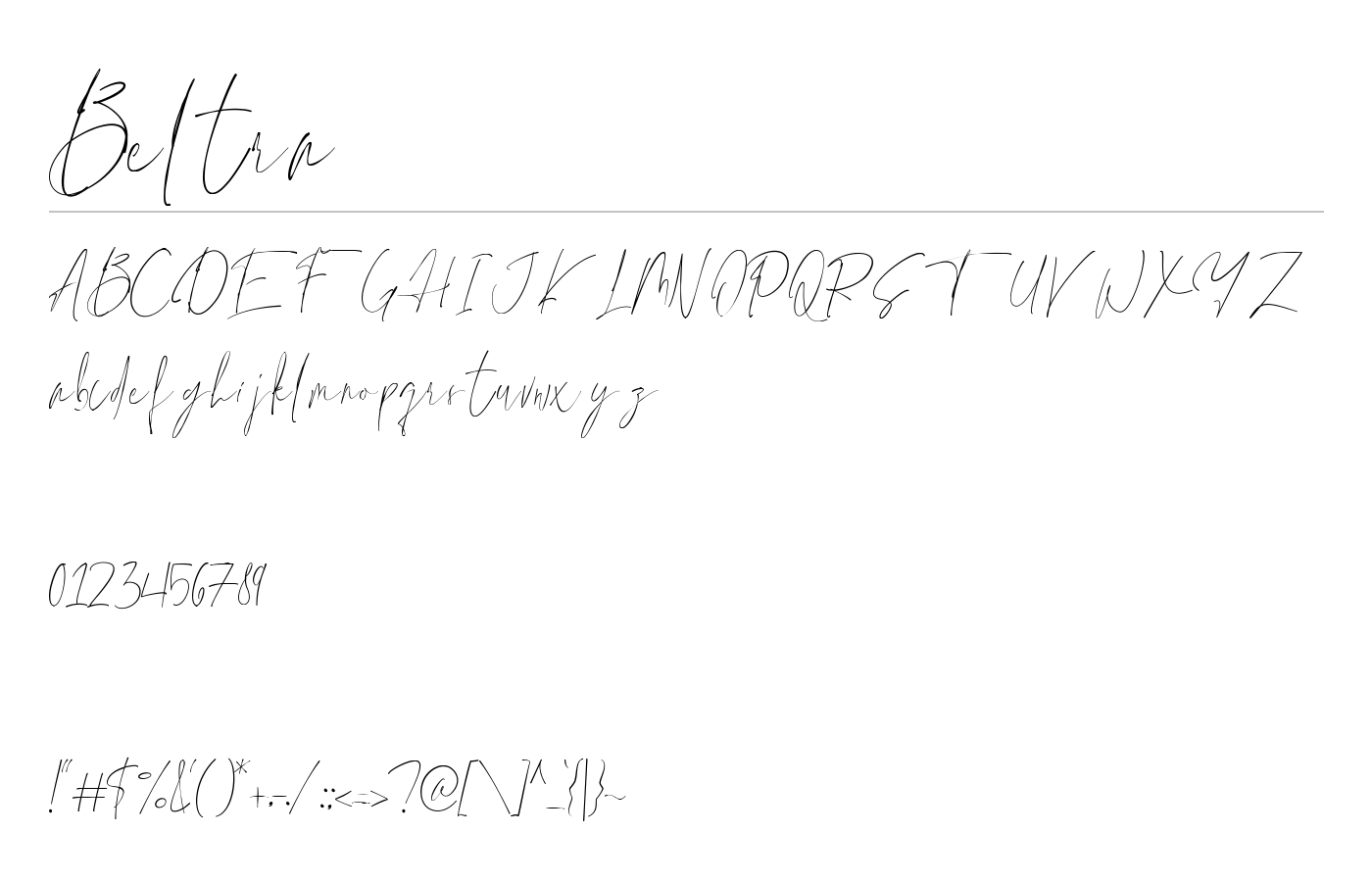
Beltra is a delicate, handwritten script font characterized by its thin, elegant strokes and airy, flowing letterforms. With its tall, narrow structure and subtle irregularities, it conveys a personal, sophisticated, and slightly whimsical feel, making it perfect for fashion, beauty branding, invitations, and other creative projects that benefit from a refined, intimate touch. Its light weight and stylish charm shine best in headlines, logos, and decorative uses where a graceful, artistic look is desired.
Beltra Font